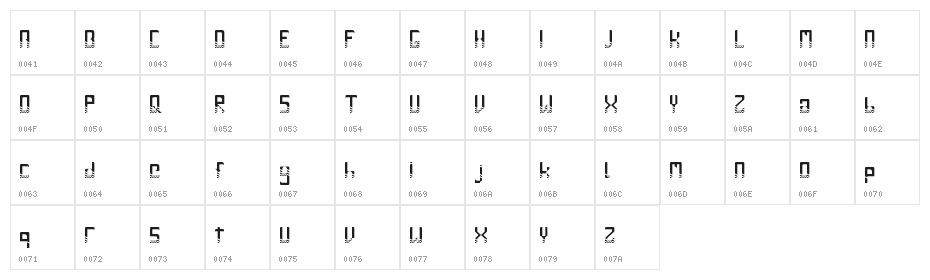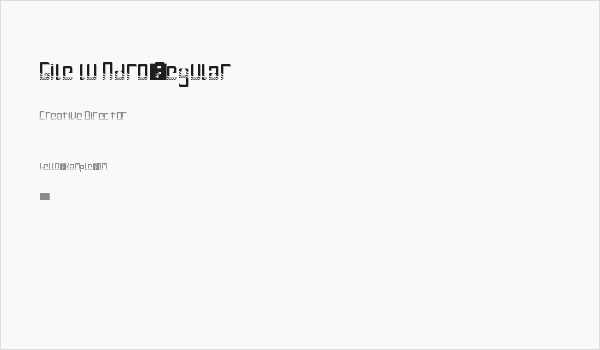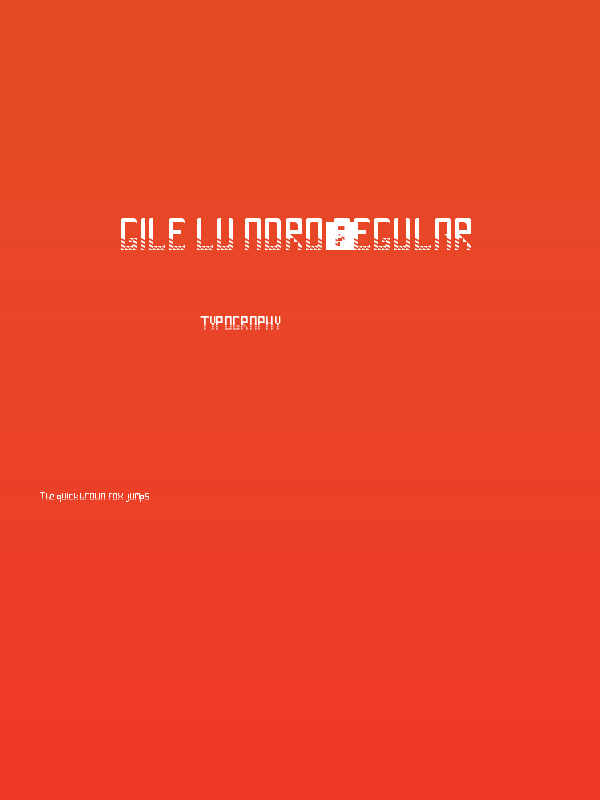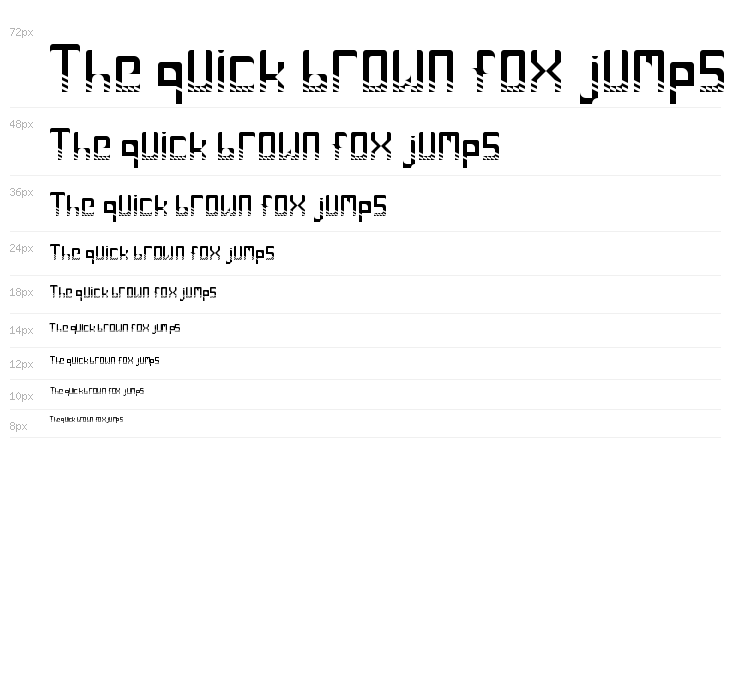
Gile lu Ndro. Regular Font
Gile lu Ndro. Regular Description
This font features a unique, modern design with a distinct striped pattern running through each character, giving it a dynamic and eye-catching appearance. The uppercase and lowercase letters maintain a consistent geometric structure, with sharp angles and clean lines. The numerals and special characters follow the same design principles, ensuring uniformity across the entire character set. The font's bold and striking style makes it ideal for projects that require a contemporary and innovative look.
Proposed ProjectsIdeal for branding, posters, and digital media projects that require a modern and striking visual impact.